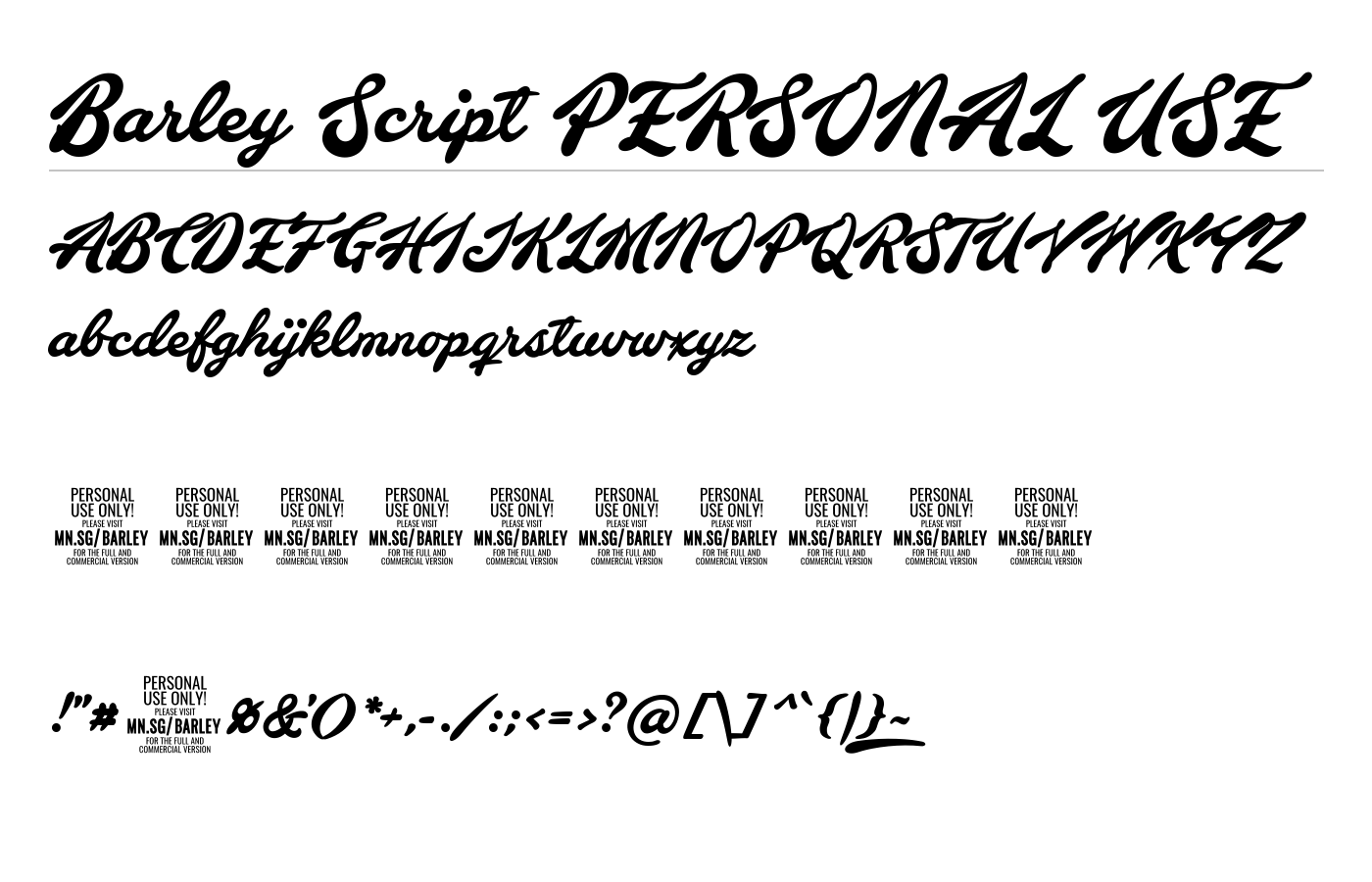
Barley Script is a bold, flowing script font with smooth, rounded strokes that convey a lively and friendly feel. Its lively cursive style and moderate contrast make it ideal for personal projects, invitations, and branding that seeks a warm, approachable touch. This font works best in headlines or logos where a handwritten, energetic vibe is desired.
Barley Script PERSONAL USE Font
About Barley Script PERSONAL USE Font